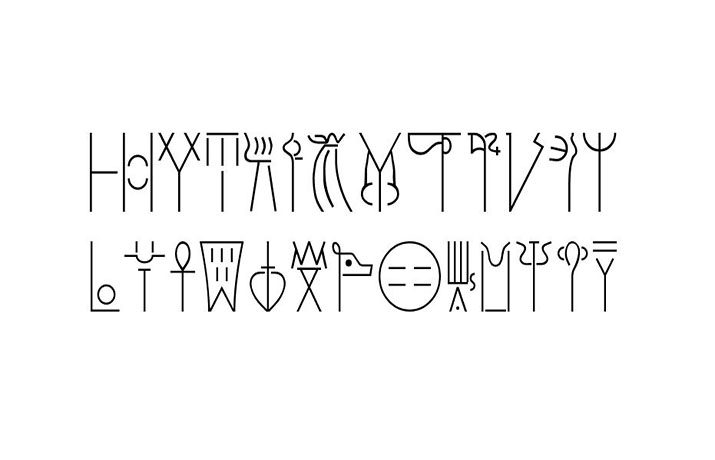
Linear B Font is a dingbat typeface that is a historical European logo-syllabary, written boustrophedon. It was designed and shared by Curtis Clark.
Used for ancient Greek. Was used 1375-1100 BCE for writing Mycenaean Greek. This font family comes in a single weight with TTF format. It includes 90 unique glyphs and also supports 66 languages.
It showcases the slim and clean texture in the dingbats form. Therefore, it can not be understood easily by anyone. Thus, to understand its structure, he must have a sound knowledge of the alphabet.